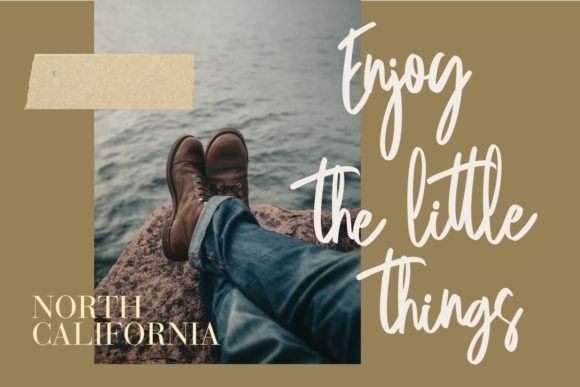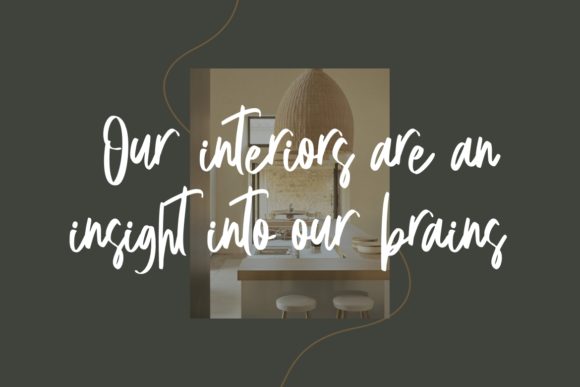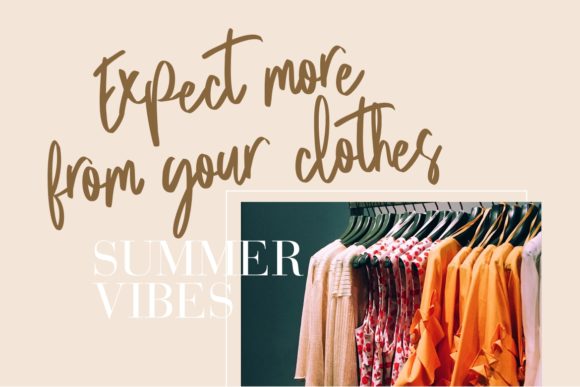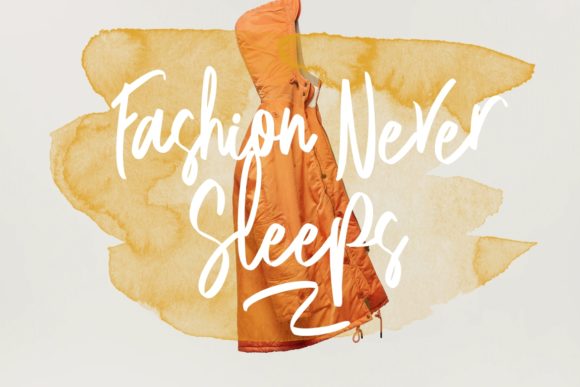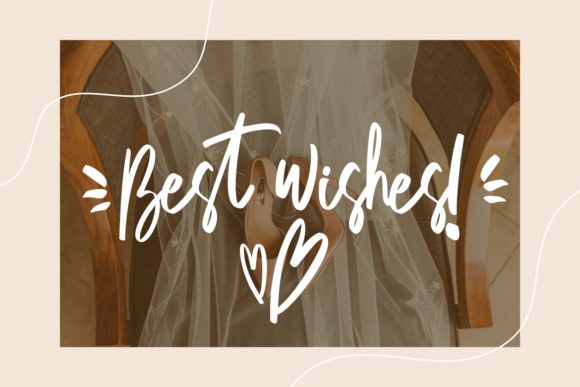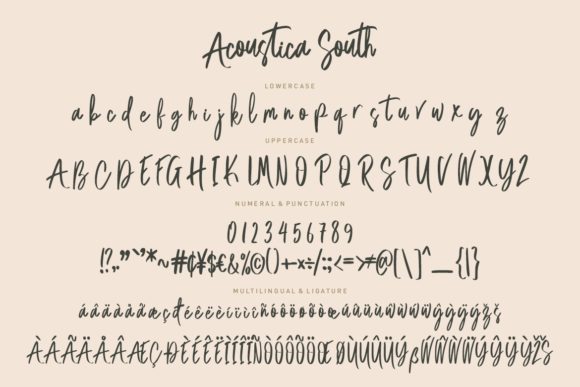
Introducing Acoustica South Font: Elevate Your Designs with Elegance
In the world of typography, the right font can make all the difference in transforming a design from ordinary to extraordinary. For designers and crafters looking for a touch of elegance and sophistication, Acoustica South Font is an excellent choice. This delicate, elegant, and flowing handwritten font is designed to bring a new level of refinement to your projects.
The Characteristics of Acoustica South Font
Acoustica South Font stands out with its beautiful and well-balanced characters. Each letter is crafted with precision to ensure that the font flows smoothly, making it perfect for a wide range of applications. Whether you’re working on a branding project, a wedding invitation, or a packaging design, Acoustica South Font can add a touch of class and sophistication.
One of the key features of Acoustica South Font is its versatility. It can seamlessly integrate into various design projects, from digital media to print materials. The font’s elegant and flowing script is sure to capture the attention of your audience and leave a lasting impression.
Why Choose Acoustica South Font?
There are several reasons why Acoustica South Font should be your go-to choice for your next design project:
- Elegance and Sophistication: Acoustica South Font exudes elegance and sophistication, making it perfect for high-end branding, luxury packaging, and special event invitations.
- Versatility: The font’s versatility allows it to be used in a wide range of projects, from digital media to print materials.
- Readability: Despite its elegant and flowing nature, Acoustica South Font remains highly readable, even at smaller sizes.
- Uniqueness: The font’s unique character ensures that your design stands out from the crowd.
How to Use Acoustica South Font in Your Designs
Acoustica South Font can be used in a variety of design projects, including:
- Branding and Logo Design: Use Acoustica South Font to create a sophisticated and elegant brand identity.
- Wedding Invitations and Stationery: Add a touch of elegance to your wedding invitations, stationery, and other paper goods.
- Packaging Design: Use Acoustica South Font to create luxurious and eye-catching packaging designs.
- Digital Media: Incorporate Acoustica South Font into your digital media, such as social media graphics, blog headers, and email newsletters.
Tips for Getting the Most Out of Acoustica South Font
To get the most out of Acoustica South Font, consider the following tips:
- Pair it with a Sans-Serif Font: Pair Acoustica South Font with a sans-serif font to create a beautiful contrast.
- Use it for Headings and Titles: Use Acoustica South Font for headings and titles to add a touch of elegance to your design.
Acoustica South Font is a beautiful and elegant handwritten font that can elevate your designs to new heights. Its versatility, readability, and uniqueness make it an excellent choice for designers and crafters looking for a touch of sophistication. By incorporating Acoustica South Font into your design projects, you can add a level of refinement and elegance that will leave a lasting impression on your audience.